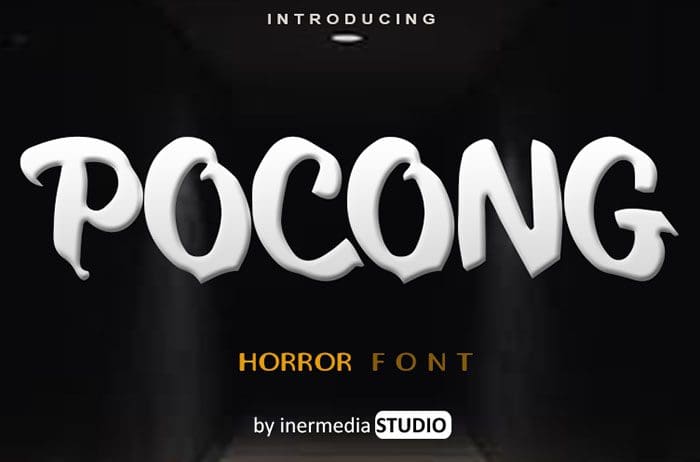
Free Pocong is a scary display font. It is perfect for any spooky project, such us movies, posters, logos and much more! Designed this font by Inermedia Studio. You can also search more freeĀ Display Fonts.